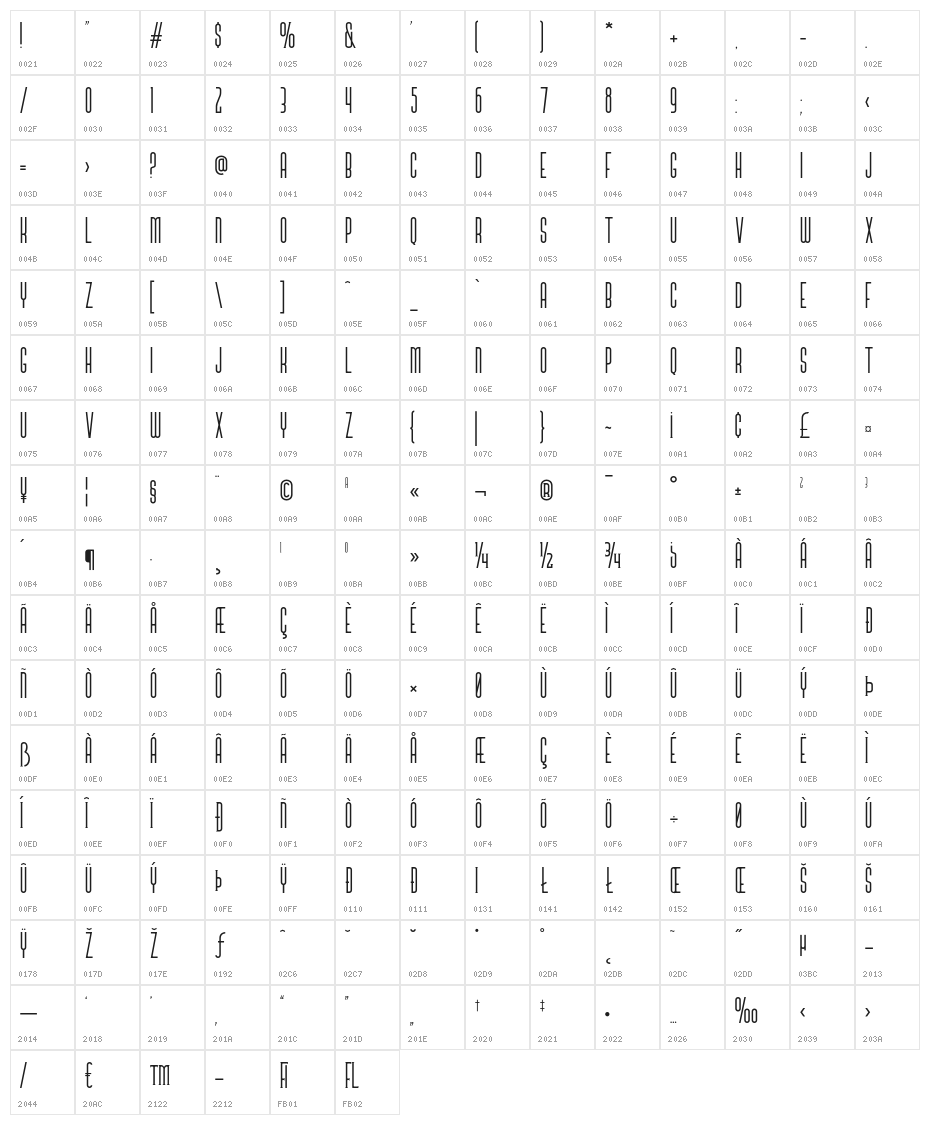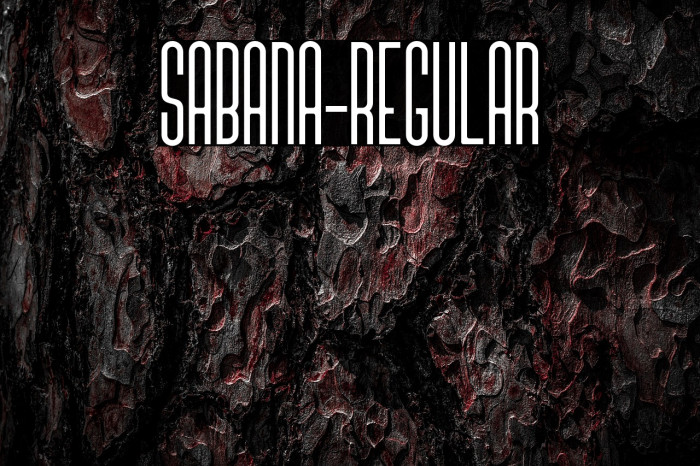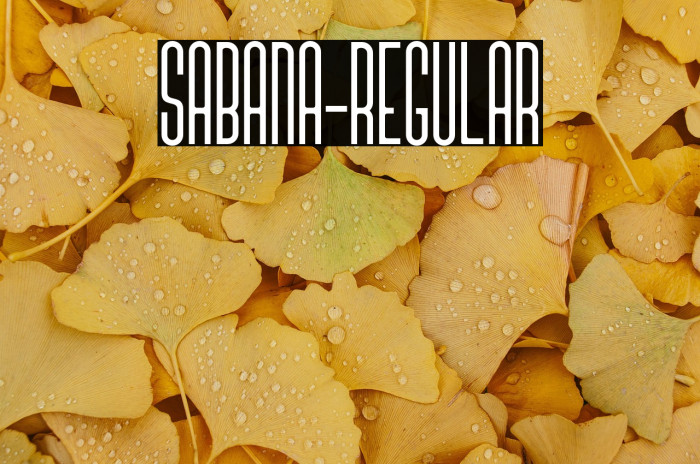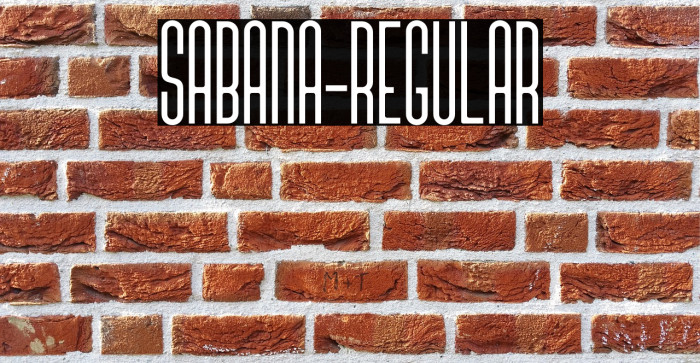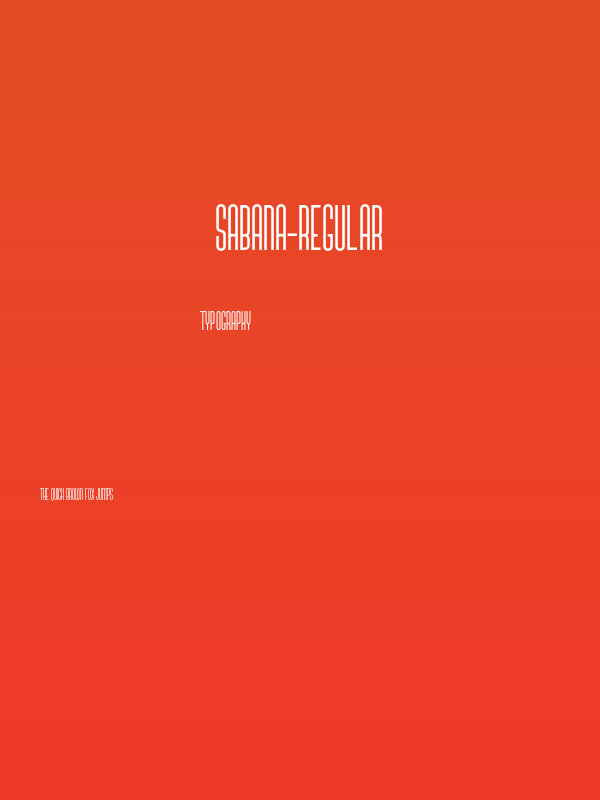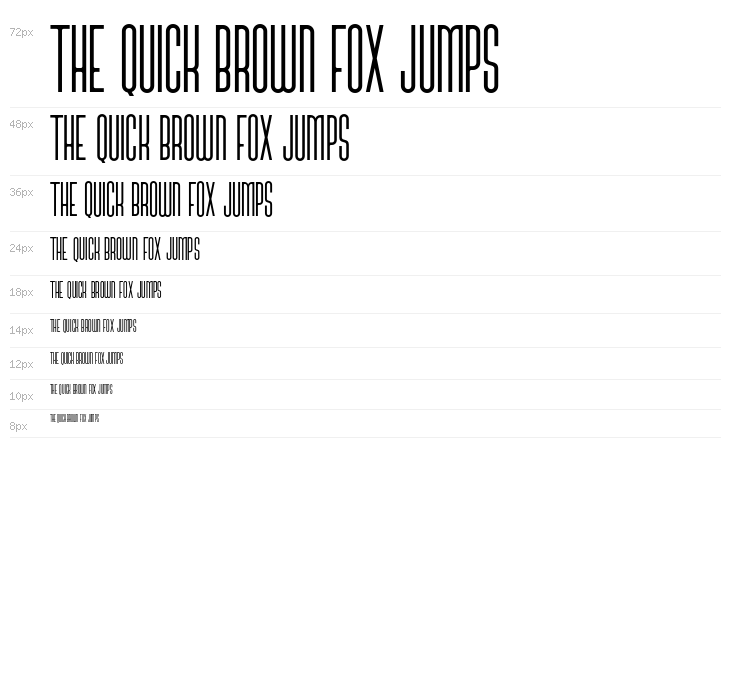
sabana-Regular Font
sabana-Regular Description
This font features a tall, narrow design with clean, straight lines and a modern aesthetic. The characters are elongated, giving them a sleek and sophisticated appearance. The uppercase and lowercase letters maintain a consistent height, contributing to a uniform look. The numbers and special characters are designed to match the overall style, ensuring a cohesive appearance across all text. The font's minimalistic design makes it versatile for various applications, while its unique structure adds a distinctive touch to any project.
Proposed ProjectsIdeal for branding, posters, headlines, and modern web design.